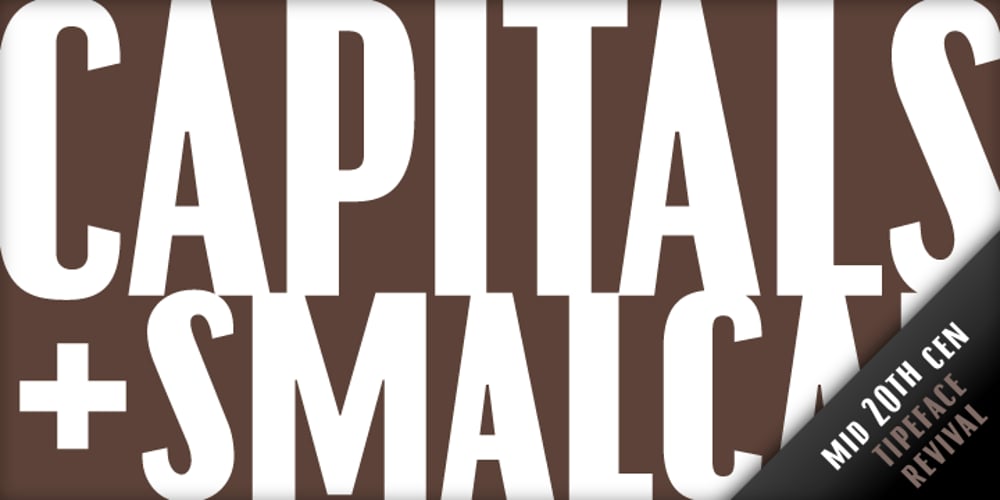
Master Font Family was designed by Jure Kožuh and published by Jure Kožuh. Master contains 1 styles and family package options. “Master of the World” was included on the front page of a novel in several parts, The Count of Monte Christo (mid 20th century). Typeface characters show design guidelines of the pre-war era (2nd world war). The idea of development origins from a wish to evolve traditional forms of typefaces which were used in Slovenia.